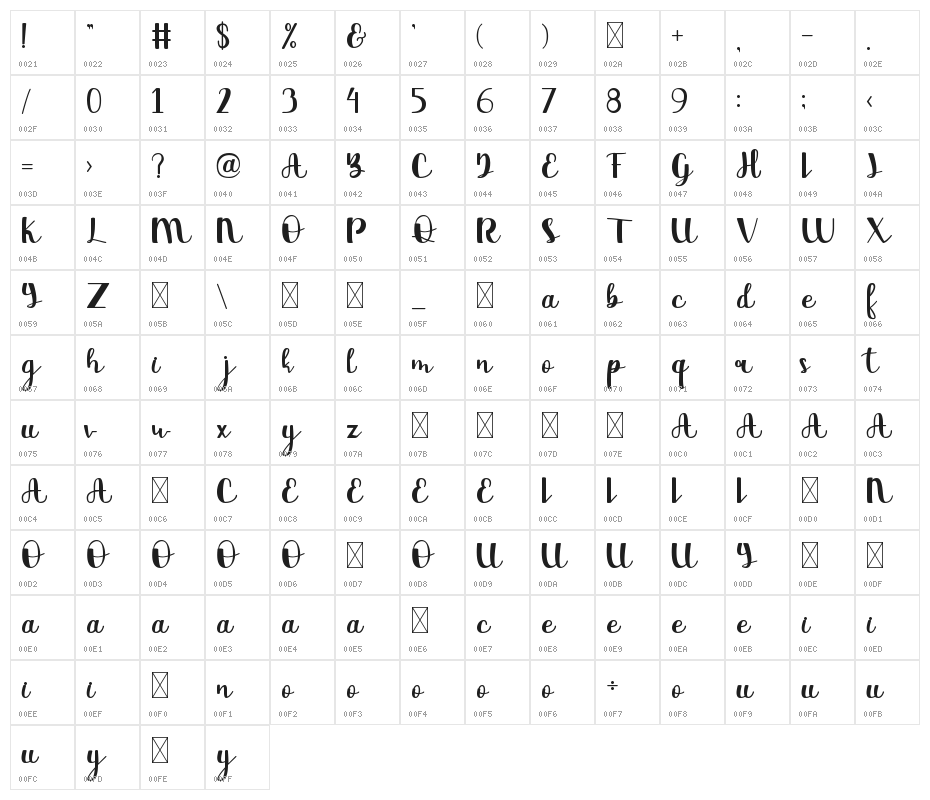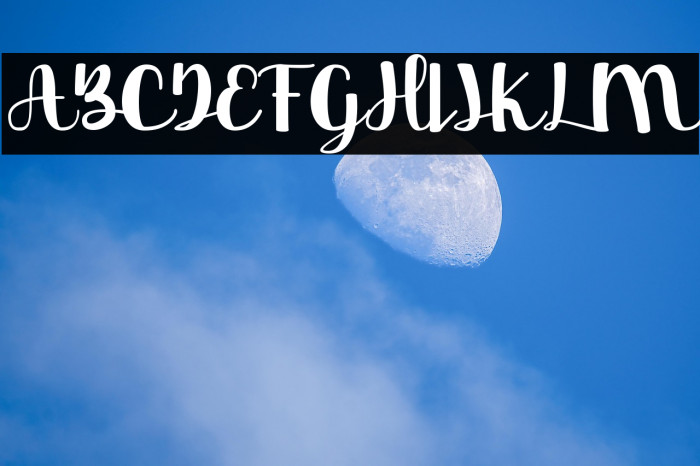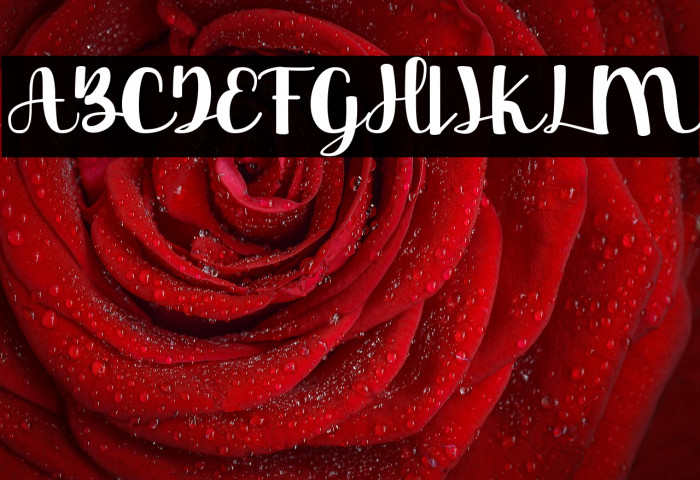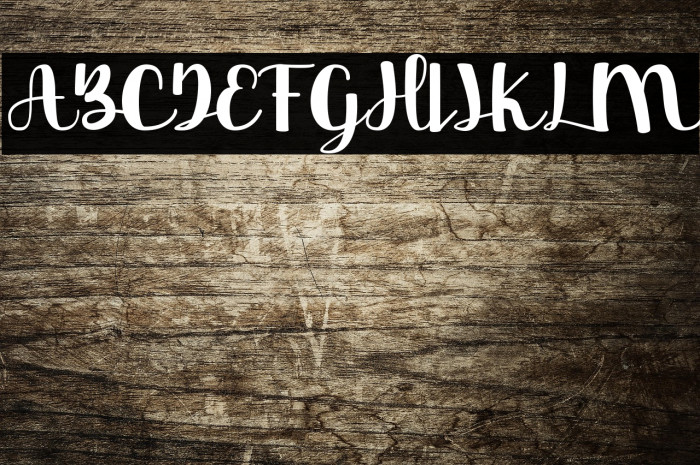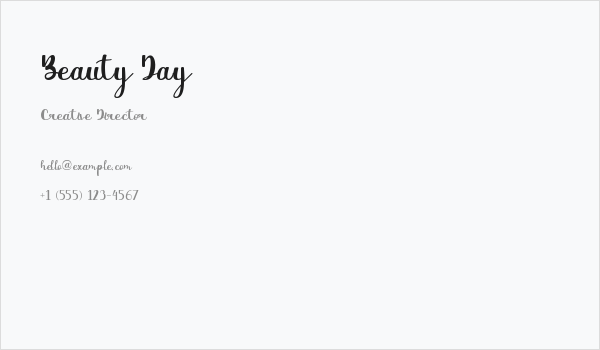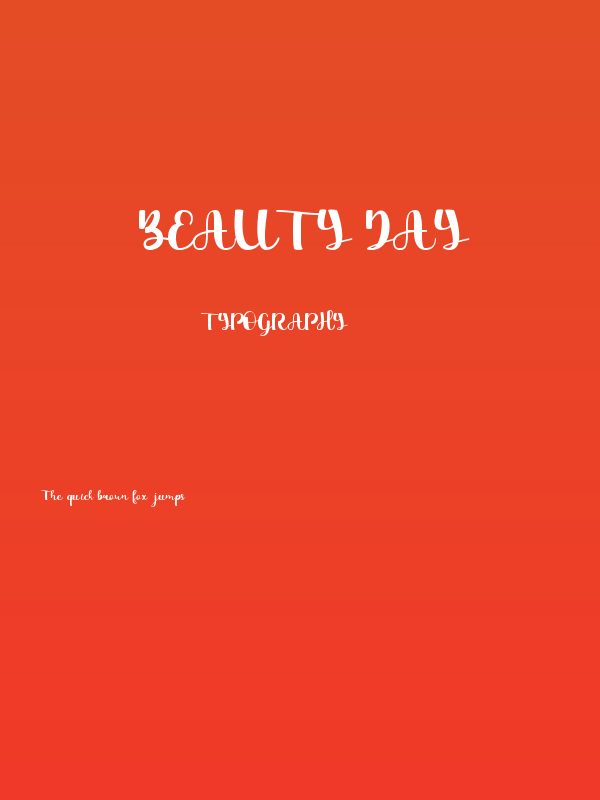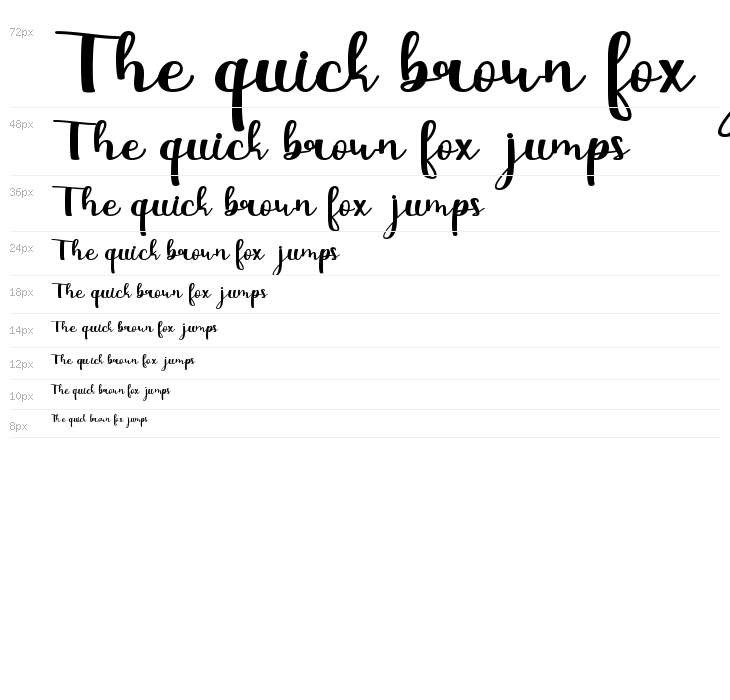
Beauty Day Font
Beauty Day Description
This font features a playful and elegant script style with a modern twist. The uppercase letters are bold and flowing, with distinctive loops and curves that add a touch of sophistication. The lowercase letters maintain a consistent style, with smooth transitions and a slightly whimsical flair. Numbers are clear and easy to read, while special characters are creatively designed to match the overall aesthetic. The font's unique character makes it suitable for a variety of creative projects, offering a blend of readability and artistic expression.
| Proposed Projects | Ideal for wedding invitations, greeting cards, branding, and decorative posters. |